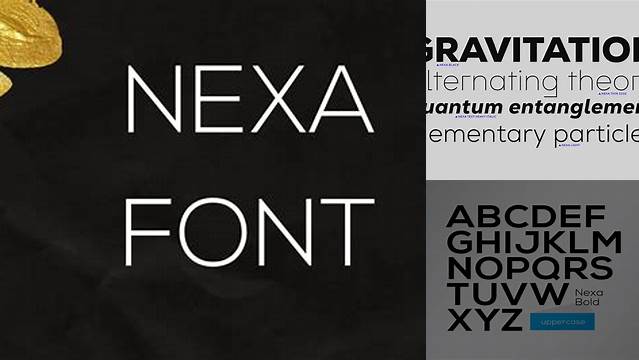
What Makes Nexa Font Family Special?
Okay, guys, let's talk about why Nexa is a total star. First off, it's a geometric sans-serif font, which, in plain English, means it's clean, modern, and easy to read. This makes it perfect for a wide range of uses, from website headers and body text to logos, posters, and even small print. One of the coolest things about Nexa is its versatility. It comes in a whopping 18 different styles (9 weights and their corresponding italics), giving you tons of options to play with. Want something bold and attention-grabbing? Go for Nexa Bold. Need something subtle and elegant? Nexa Light is your friend. This kind of flexibility is a game-changer for designers because it means you can create a consistent look and feel across all your projects without having to switch fonts. But that's not all. Nexa also boasts excellent legibility, even at small sizes, making it ideal for both digital and print media. It's designed to be easy on the eyes, ensuring your audience can effortlessly consume your content. This font family is not only aesthetically pleasing but also functional, making it a top choice for professionals and hobbyists alike. And let's be honest, who doesn't love a font that looks good and works hard? Plus, the fact that it's free for both personal and commercial use is just the cherry on top! You can use it for pretty much anything without worrying about licensing fees. This makes Nexa an amazing asset for small businesses, startups, and anyone on a budget. If you are looking for a reliable and appealing font that can adapt to almost any project, Nexa should be at the top of your list. Its simple design and adaptability make it an excellent choice for a variety of design needs.
Tips for Using Nexa in Your Designs
Now that you've got the Nexa Free Font Family downloaded and installed, let's talk about how to make the most of it! First, it's important to understand the different styles and weights available. Nexa offers a wide range of weights, from Light to Bold, which means you can create a visual hierarchy in your designs. Use the lighter weights for body text and the bolder weights for headlines and titles to grab attention and guide the reader's eye. Another cool tip is to use the italic versions to add emphasis or create a sense of movement. Nexa's italics are beautifully designed and add a touch of elegance to your designs. Don't be afraid to experiment with different combinations of weights and styles to find the perfect look for your project. When choosing the font size, make sure to consider the context of your design. For body text, a size between 12 and 16 points usually works well. For headlines, you can go bigger, depending on the design. Remember that readability is key, so always choose a font size that's easy to read, especially on screens. Another aspect to keep in mind is spacing. Adjust the line height and letter spacing to improve readability. A little extra space can make a huge difference in how your text looks and feels. Nexa is a versatile font, so it can be paired with other fonts, but be mindful of the combination. Don't mix too many different fonts in one design, as it can make it look cluttered. It's often a good idea to pair Nexa with a complementary font for headings and body text. Consider using a serif font for headings to add contrast and visual interest. Color is another critical aspect of design. Choose colors that complement your text and create a cohesive look. Experiment with different color palettes to find the perfect match for your project. Nexa works great with a variety of colors. The possibilities are endless. With these tips, you can elevate your designs and create a visually appealing and engaging experience for your audience. So, get creative, have fun, and let Nexa help bring your design vision to life!
Nexa Font Family Use Cases: Where It Shines
Okay, let's get down to the nitty-gritty of where the Nexa Free Font Family truly shines. This font is incredibly versatile, which makes it a great choice for a wide range of design projects. It's like the Swiss Army knife of fonts. Websites and blogs are prime real estate for Nexa. Its clean lines and excellent readability make it perfect for body text, headers, and navigation menus. Whether you're building a personal blog or a corporate website, Nexa can give your site a modern and professional look. Because of the variety of weights and styles, you can create a visually appealing and engaging experience for your readers, making sure they stay hooked on your content. Nexa is also a fantastic choice for logos and branding. Its geometric sans-serif style gives it a contemporary and memorable feel. The different weights allow you to create logos that are both versatile and impactful. Whether you're designing a logo for a tech startup or a creative agency, Nexa can help you create a strong brand identity. In the world of print, Nexa excels as well. It's great for posters, brochures, flyers, and even books. Its clean and legible design ensures your message is clear and easy to understand. From marketing materials to event announcements, Nexa can make your print designs stand out. Moreover, Nexa fits seamlessly into the world of digital marketing. It's excellent for social media graphics, ads, and email newsletters. Its versatility lets you create a consistent brand image across various platforms, making sure your audience recognizes your brand instantly. Using Nexa, you can enhance your digital marketing efforts with clean and stylish visuals. If you are in the design or marketing field, Nexa can be a key asset. And, because it is free for commercial use, it's a cost-effective solution for startups, small businesses, and freelancers. So, whether you're designing a website, creating a logo, or working on marketing materials, Nexa is a solid choice. Its flexibility, legibility, and modern aesthetic make it a must-have font in any designer's toolkit.
Nexa vs. Other Fonts: What Makes It Stand Out?
Alright, let's put Nexa Free Font Family to the test and see how it stacks up against the competition. What makes Nexa stand out from the crowd in a world filled with fonts? First off, when comparing Nexa to other geometric sans-serif fonts like Futura or Montserrat, you'll notice its unique character. Nexa has a slightly softer and more approachable feel compared to the more rigid geometric designs of Futura. This makes it feel friendlier and more inviting, making it an excellent choice for a broader range of projects. In contrast to fonts such as Open Sans, Nexa offers a wider range of weights and styles. This versatility allows for greater design flexibility, enabling designers to create a more distinctive visual hierarchy within their projects. Open Sans is a great font, but Nexa provides more options to play with. Another key advantage of Nexa is its excellent readability. Especially in smaller sizes and digital displays, Nexa shines. It's designed to be easy on the eyes, ensuring your audience can effortlessly read your content. When it comes to licensing, Nexa's open-source nature is a huge benefit. It's free for both personal and commercial use. In contrast, some fonts have restrictive licensing terms or require you to pay for commercial use. This makes Nexa a budget-friendly and accessible option for designers of all levels. Nexa offers a great balance of style, functionality, and versatility. Its clean design, wide range of weights, and open-source license make it a standout choice for a variety of design projects. Whether you're a seasoned professional or a design enthusiast, Nexa is worth a place in your font library. Nexa offers a compelling combination of aesthetics and practicality that sets it apart from the pack. It's not just a font; it's a statement.
So, there you have it, guys! We've taken a deep dive into the world of the Nexa Free Font Family, and hopefully, you're as excited about it as I am. Let's recap why Nexa is such a fantastic font. First off, its versatility is a major selling point. With 18 different styles, you have the freedom to create a consistent and appealing look for all your design projects. Its clean, modern design is perfect for various applications, from websites and logos to print materials. Another huge advantage is its excellent readability, ensuring your message comes across clearly, no matter the size or medium. And let's not forget that it's free! This makes it accessible to everyone, from individual designers to large companies. With the wide range of weights, the font will help you to create visually engaging designs. It is easy to read on both digital and print platforms. Plus, its user-friendly licensing means you can use it for personal and commercial purposes without worry. In short, Nexa is a must-have font for any designer's toolkit. If you haven't already, I highly recommend you download the Nexa Free Font Family today. It's a simple process, and the benefits are huge. You can find it on various trusted font websites. So go ahead, explore the different styles, experiment with it, and watch your designs come to life. Happy designing, and enjoy the power of Nexa!